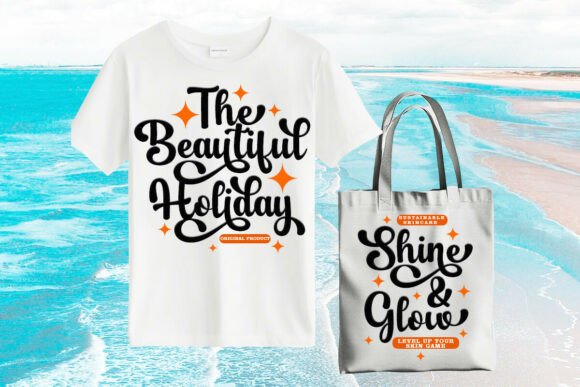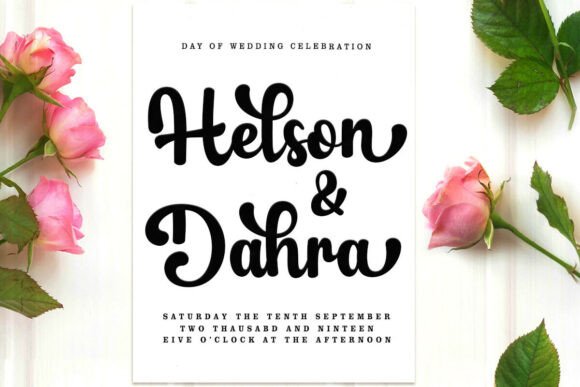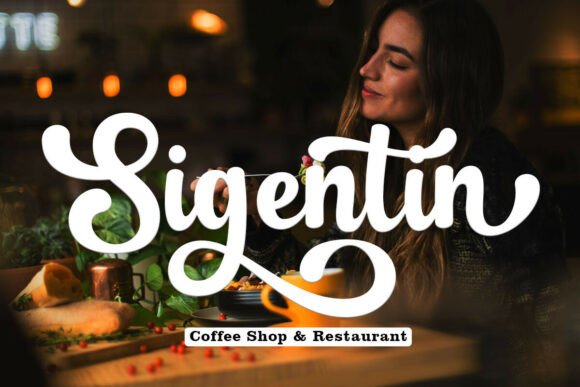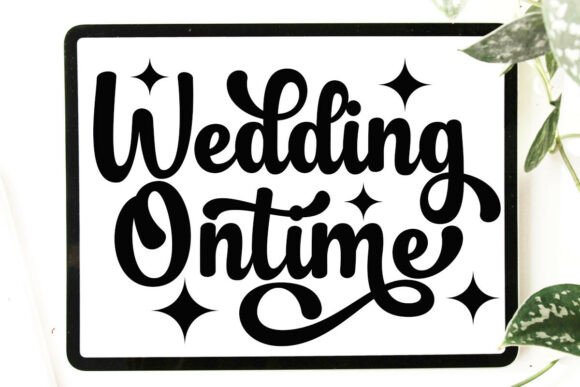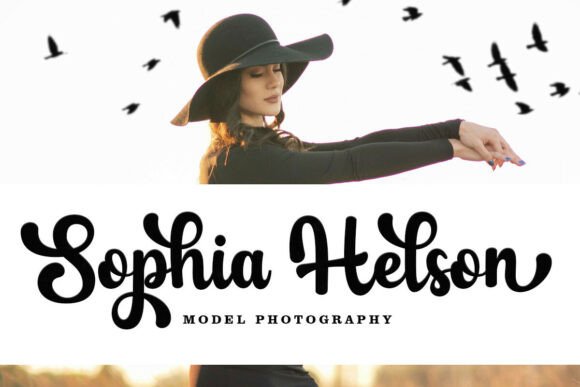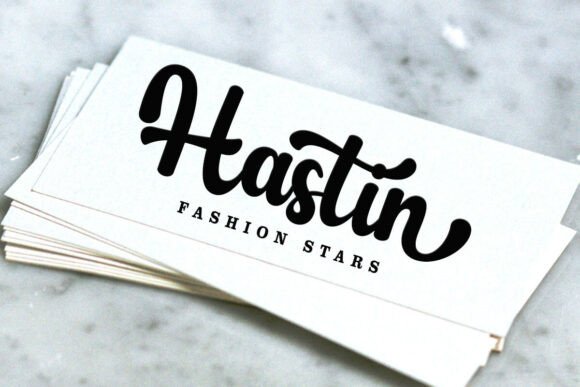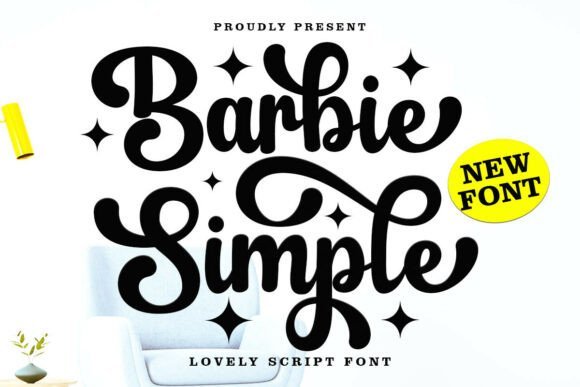
Unlocking the Beauty of Handwritten Text
Have you ever sat down with a pen and paper, trying to capture the perfect handwritten feel for a project? I know I have. There’s something special about the imperfections and flow of handwritten text that can make a design truly stand out. That’s why I’m excited to introduce you to the Barbie Simple Font, a modern calligraphy design that brings that same handwritten feel to your digital designs.
The Barbie Simple Font is perfect for designers looking to add a touch of elegance and sophistication to their work. With its casual and beautiful swashes, this font can be used for a wide range of purposes, from logos and product packaging to wedding invitations and branding. Its versatility and international support make it a valuable tool for designers of all levels.
Key Features of Barbie Simple Font
- Unique Characteristics: Barbie Simple Font features a playful and cursive script style, with a range of ligatures and swashes that add a touch of whimsy and elegance to text.
Barbie Simple Font Review
Overall, I think the Barbie Simple Font is a cute and playful font that’s perfect for creative projects, but it may not be the best choice for more professional or formal designs.
- ✨ The font is highly customizable, allowing you to adjust the size, color, and style to fit your design needs.
- ✨ The simple design makes it easy to read and understand, even at small font sizes.
- ✨ The font is available in a range of weights, from light to bold, making it suitable for various design applications.
- ⚠️ The font may not be suitable for professional or formal designs due to its playful and childish nature.
- ⚠️ Some users may find the font to be too simplistic or lacking in character, especially when used in isolation.
- ⚠️ The font may not be as versatile as other fonts, limiting its use in certain design contexts.
The Barbie Simple Font is a fun and creative font that’s perfect for projects that require a playful touch. However, it may not be the best choice for more formal or professional designs. With its high level of customization and availability in various weights, it’s a great option for designers looking to add some personality to their work.
The Barbie Simple Font is ideal for children’s party invitations, nursery decor, and other kid-friendly designs. To get the most out of it, use it in combination with bright colors and playful graphics.
Some common use cases for the Barbie Simple Font include:
- Nursery decor and wall art.
- Children’s books and educational materials.